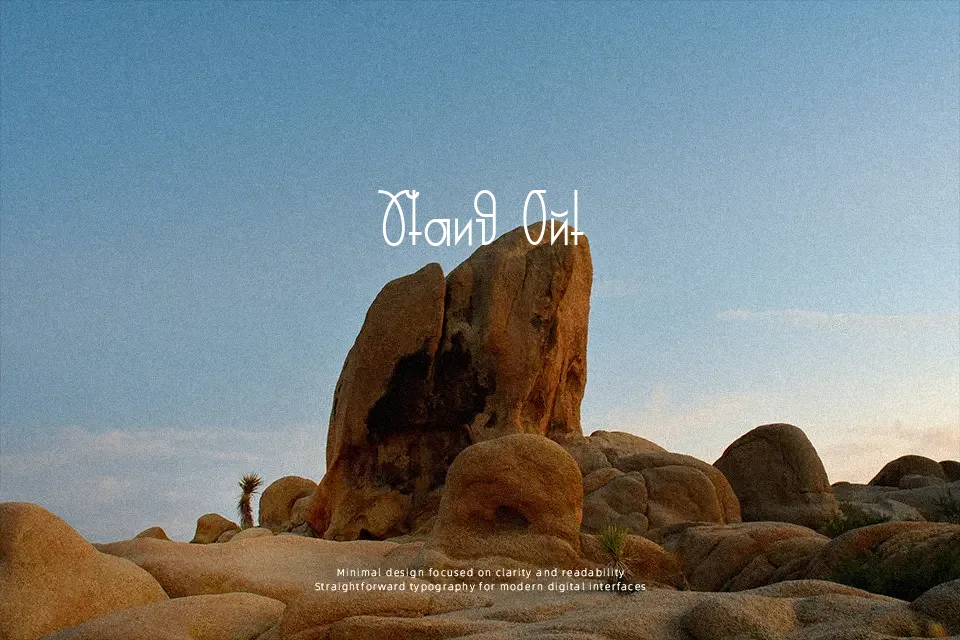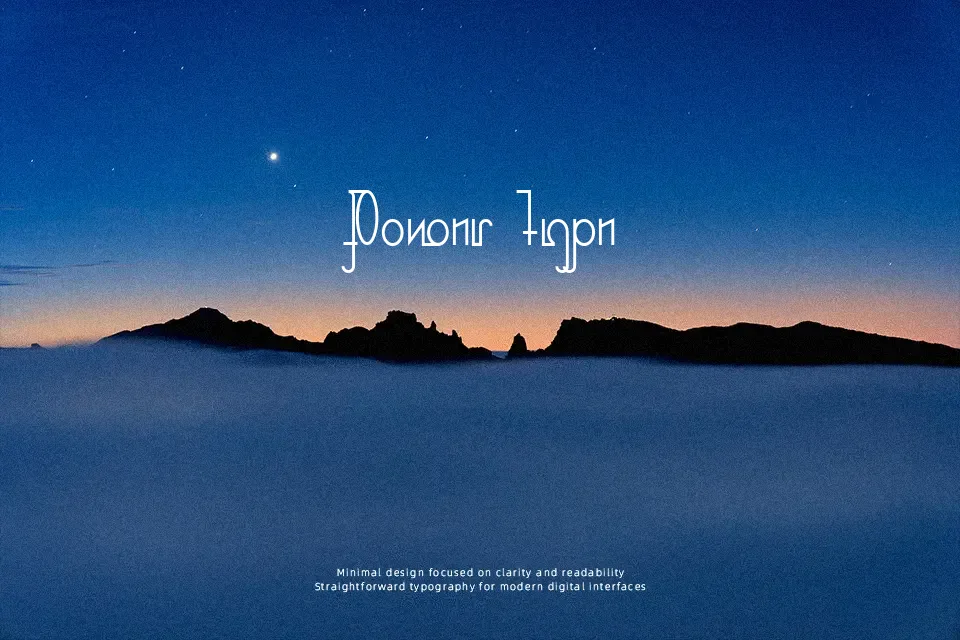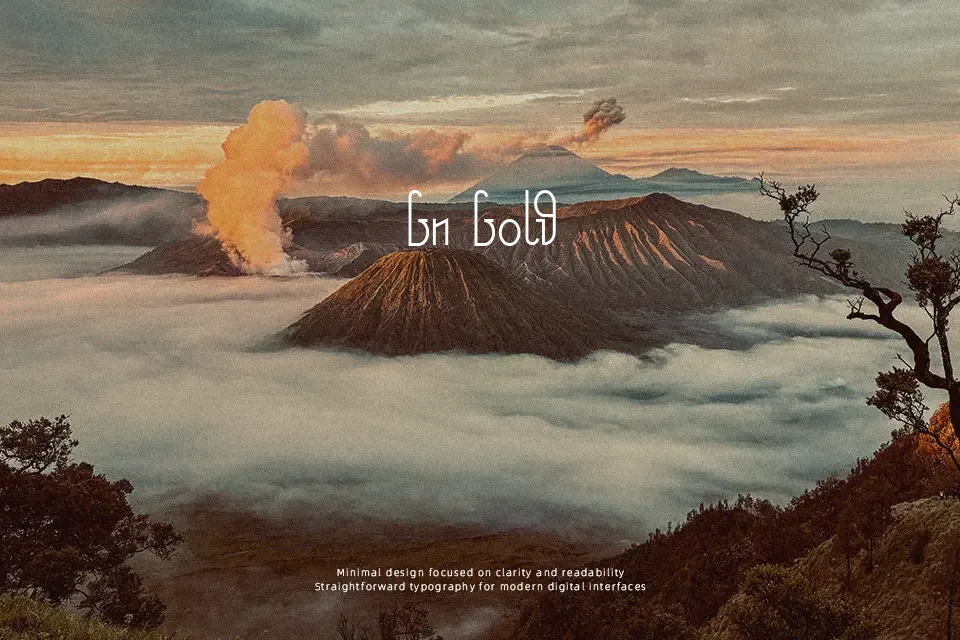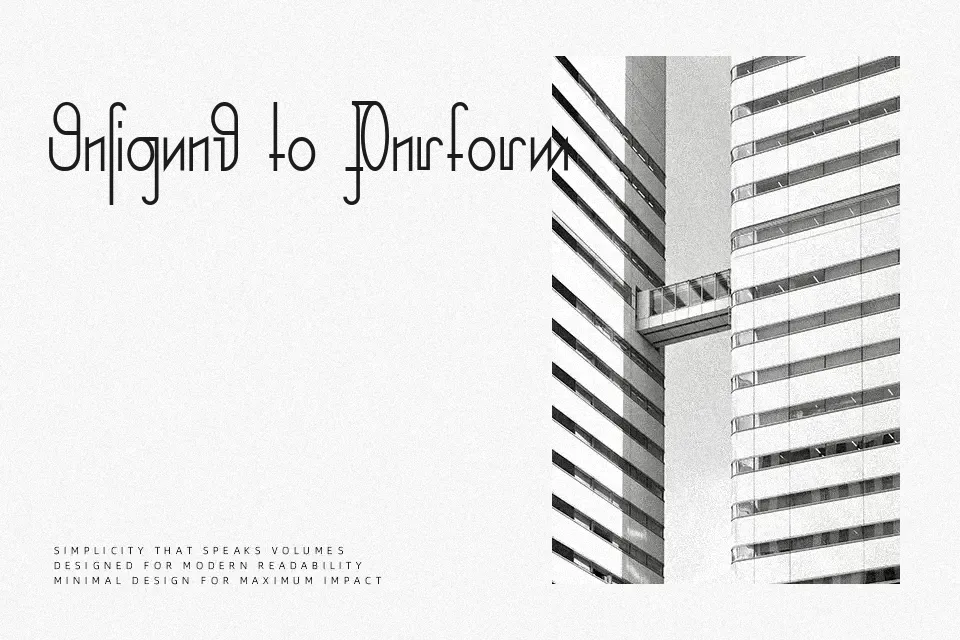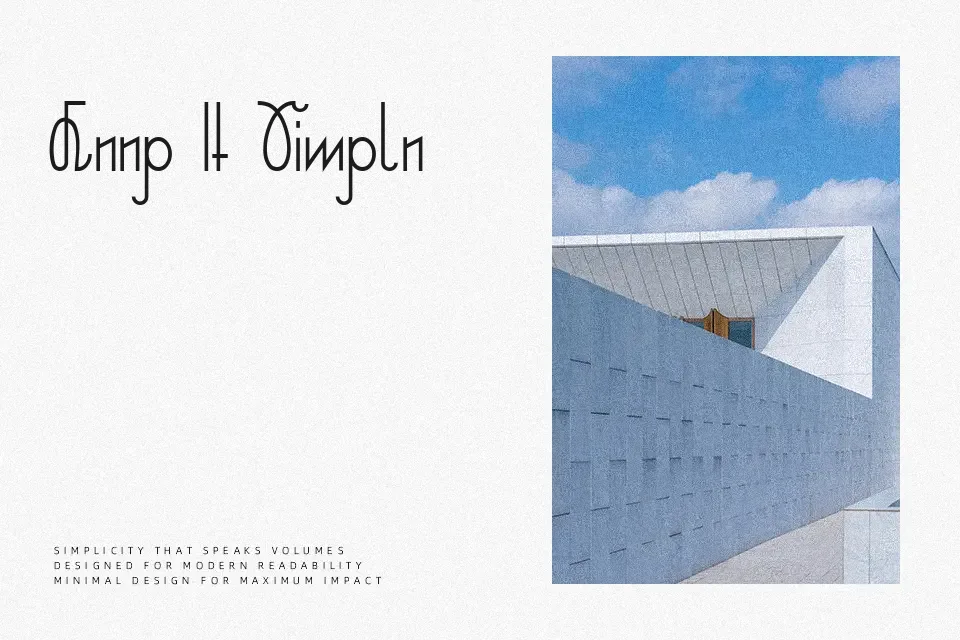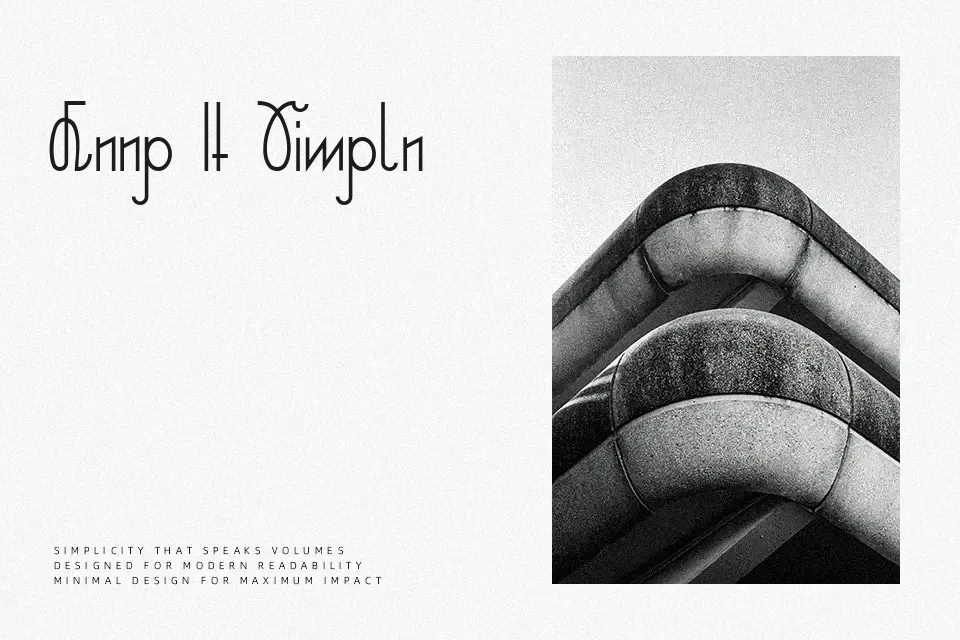
Rudelskopf Deutsch Font
Rudelskopf Deutsch Font presents an experimental structural approach, blending the flowing forms of historical German cursive with the uniform stroke thickness of a modern grotesque. The letterforms display unusual rigid uprights alongside distinct curves, creating a fascinating rhythm across the baseline. Its balanced spacing allows the characters to breathe, though the unconventional shapes demand extra attention from the reader. The consistent monolinear strokes help maintain clarity in larger headlines and creative displays. However, these highly decorative details become less effective at smaller sizes, significantly reducing continuous reading comfort. This typeface performs best when used for striking visual statements where historical charm meets modern geometry.
Best For: vintage product packaging, historical exhibition posters, specialized apparel graphics
Not Ideal For: long paragraph text, small interface labels, dense editorial layouts
Perfect for headline, packaging, and poster, with a artistic and decorative style.